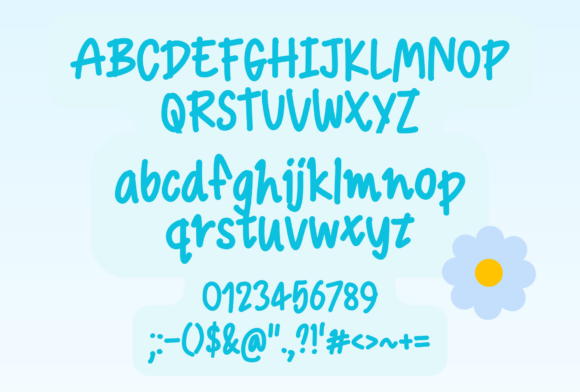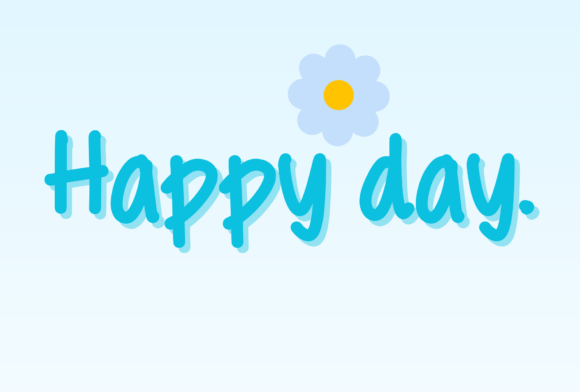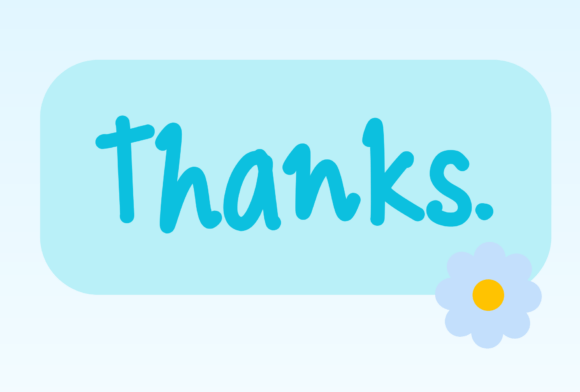
Introducing Friday 2025 Font: The Perfect Handwritten Companion for Digital Creativity
In the realm of digital design, the right font can elevate your project from ordinary to extraordinary. For those who appreciate the personal touch of handwritten elements, the Friday 2025 font is a game-changer. This neat handwritten font is not only perfect for digital note-taking but also incredibly versatile, making it an ideal choice for a wide range of creative projects.
Whether you’re a digital artist working with Procreate, a blogger looking for a unique touch for your posts, or a designer crafting logos and branding materials, Friday 2025 is up to the task. Its clean and readable style ensures that it works beautifully across various mediums, including:
- Procreate: Add a personal touch to your digital art and illustrations.
- Blog Posts: Stand out with a unique font that captures your readers’ attention.
- Logos and Branding: Create memorable brand identities with a distinctive handwritten feel.
- Digital Planners: Organize your digital space with style and personality.
- Invitations and Greeting Cards: Make your invitations and cards special with a heartfelt, handwritten look.
- Photo Albums: Enhance your digital photo albums with beautifully styled text.
- Decorations: From digital wallpapers to printable art, add a personal touch to your decor.
Language Support for Global Creativity
Creativity knows no borders, and neither does the Friday 2025 font. With its extensive language support, designers and crafters from around the world can use this font to add a personal touch to their projects, regardless of the language they’re working with. This feature makes Friday 2025 a truly global tool for digital creativity.
Perfect for iPad and GoodNotes Users
For those who love the tactile feel of handwritten notes but prefer the flexibility of digital tools, Friday 2025 shines on iPads and GoodNotes. It’s the perfect companion for:
- Digital Note-taking: Elevate your digital notes with a stylish and easy-to-read font.
- GoodNotes: Enhance your digital planning and journaling experience.
Why Choose Friday 2025?
With so many fonts available, what makes Friday 2025 stand out? Here are a few reasons why it’s becoming a favorite among designers and crafters:
- Cute and Personal: Adds a warm, personal touch to any design.
- Highly Versatile: Suitable for a wide range of projects, from digital art to branding.
- Easy to Read: Its neat and clean style ensures readability across various devices.
- Multilingual Support: A global font for a global community of creators.
Friday 2025 is more than just a font – it’s a tool that unlocks creativity and adds a personal touch to digital designs. Whether you’re a professional designer, a hobbyist, or someone who loves digital crafting, this font offers the versatility and charm needed to make your projects stand out. With its extensive language support and compatibility with popular digital tools like Procreate, iPads, and GoodNotes, Friday 2025 is set to become your go-to font for all your digital creative needs.